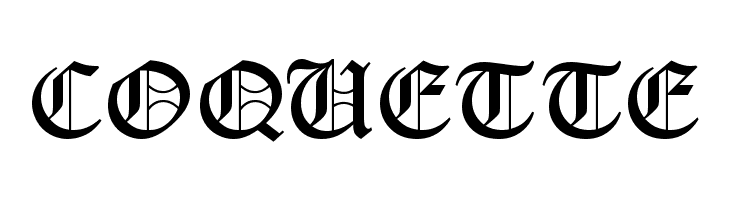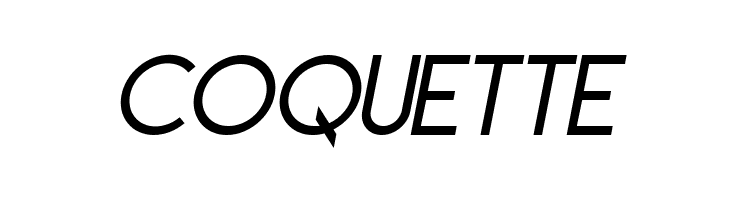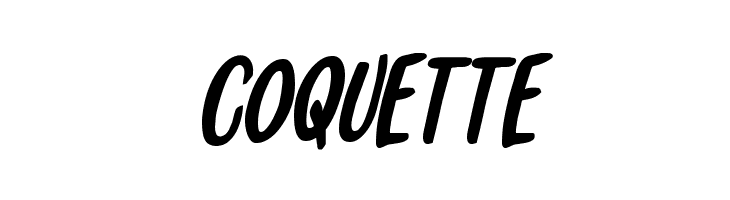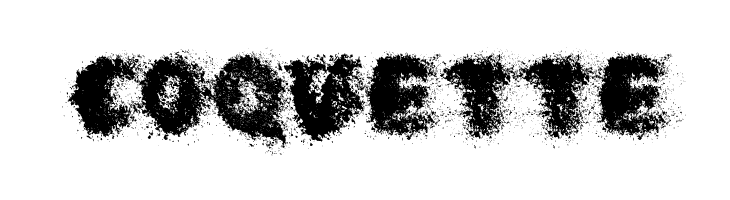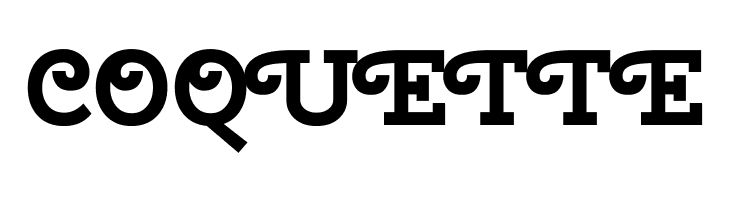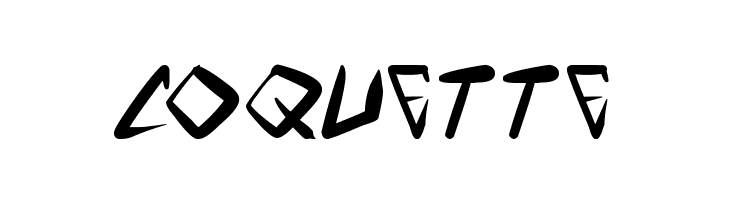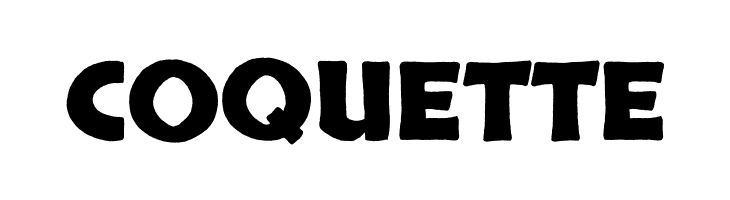
A bold, italic, handwritten-style font with dynamic and fluid characters.
A bold, textured font with distressed uppercase letters and classic serif numbers.
A bold, expressive font with elegant swashes and decorative elements.
A bold, modern sans-serif font with excellent readability.
A bold, angular font with a futuristic and edgy style.
A bold, modern font with thick strokes and strong presence, ideal for headlines.